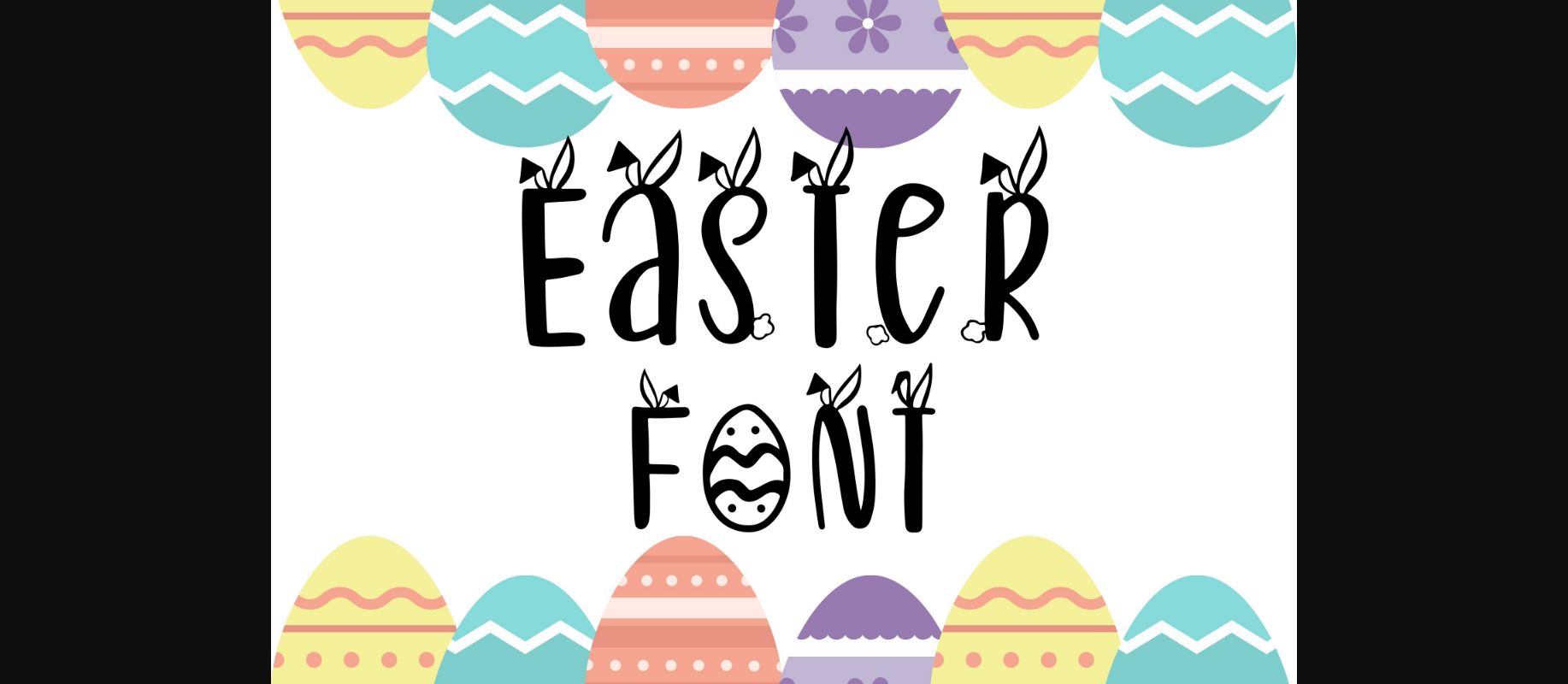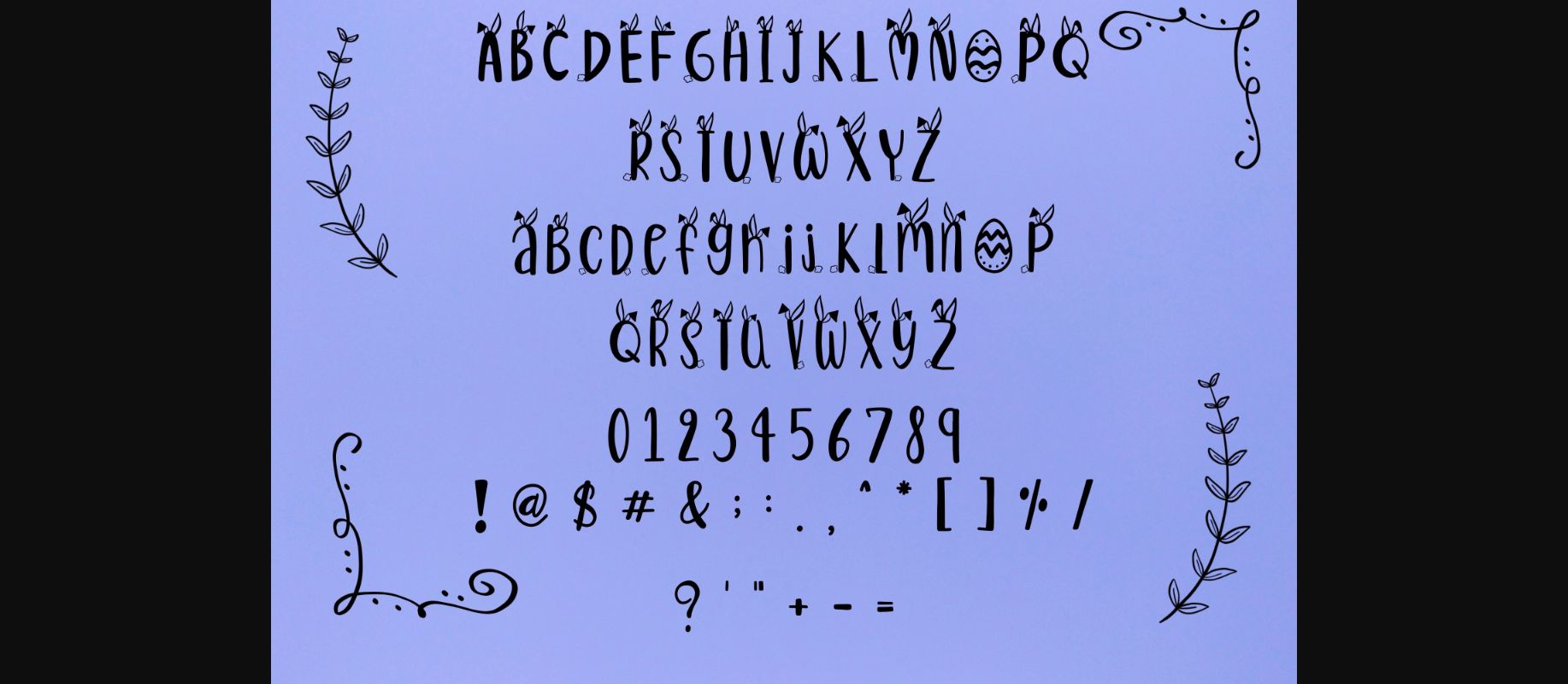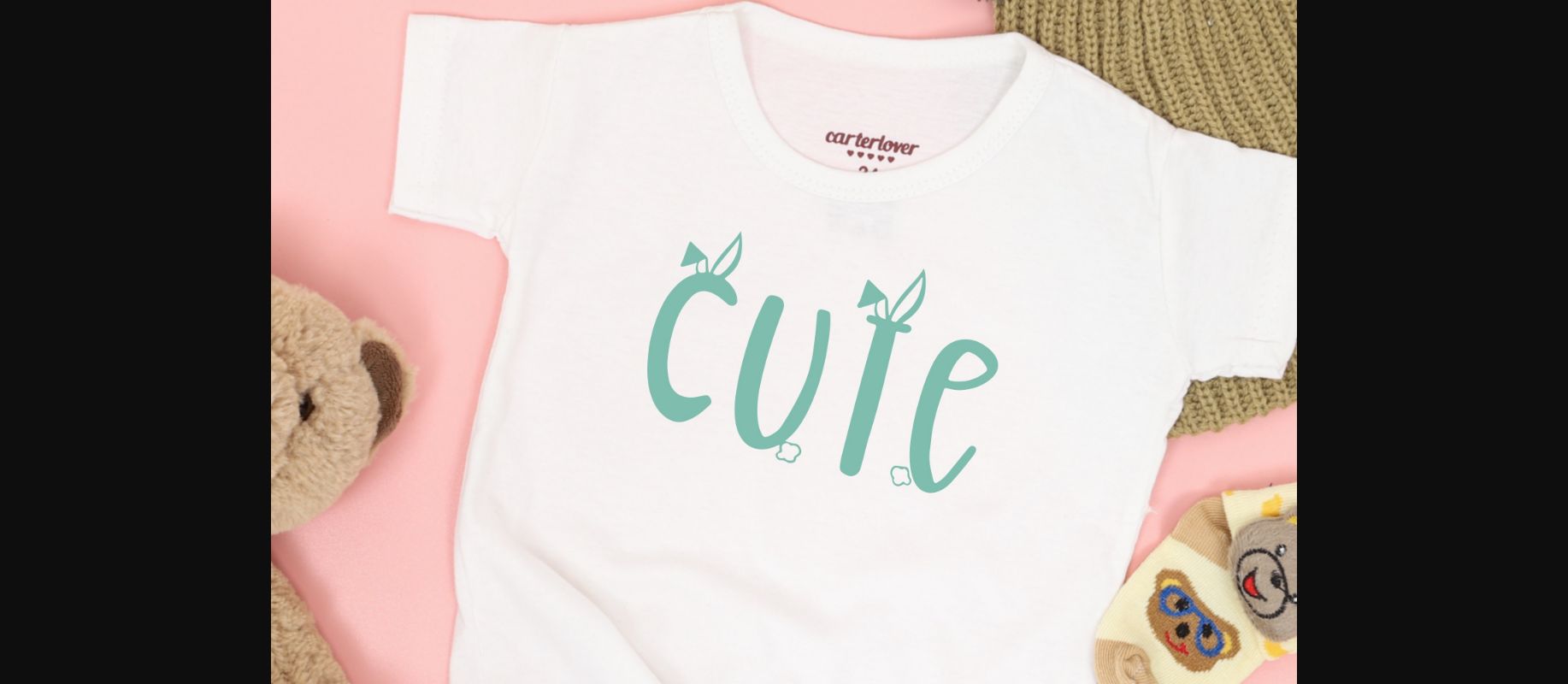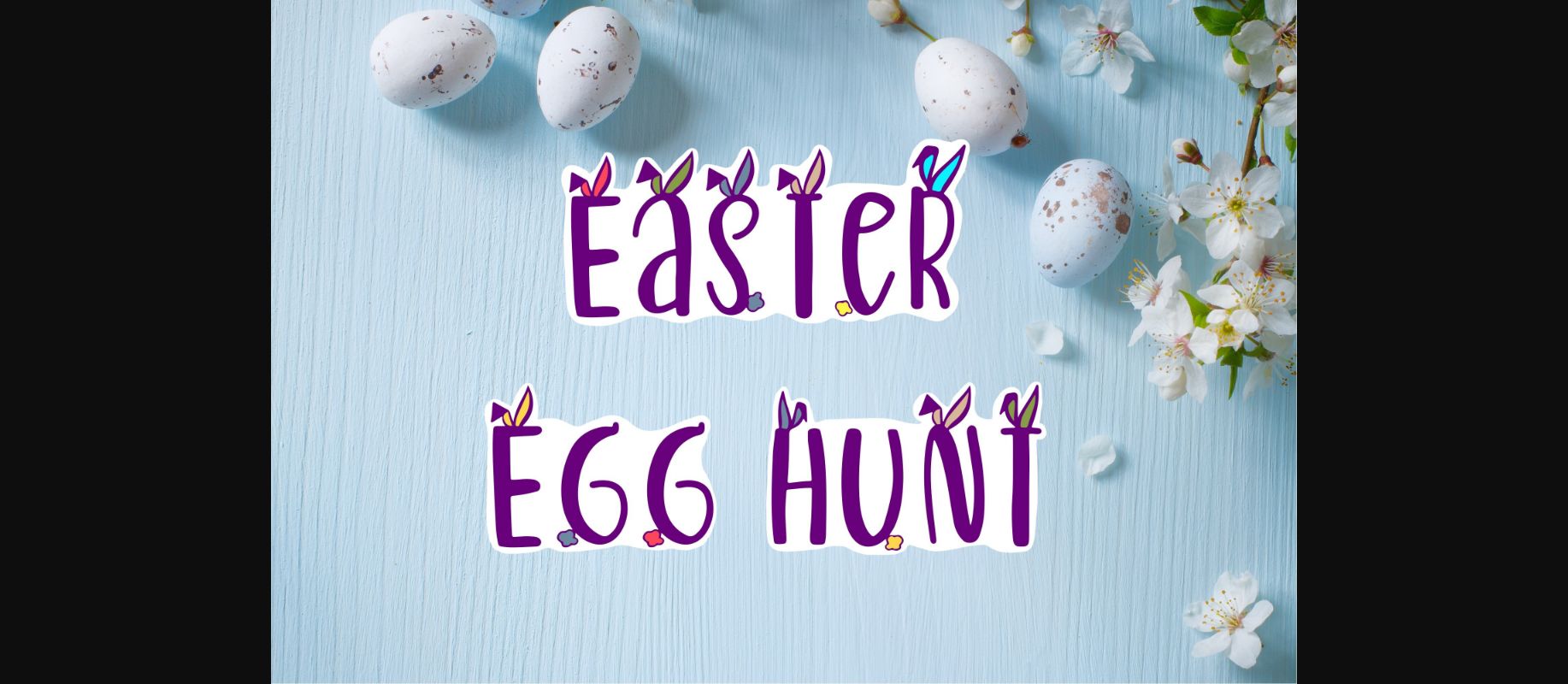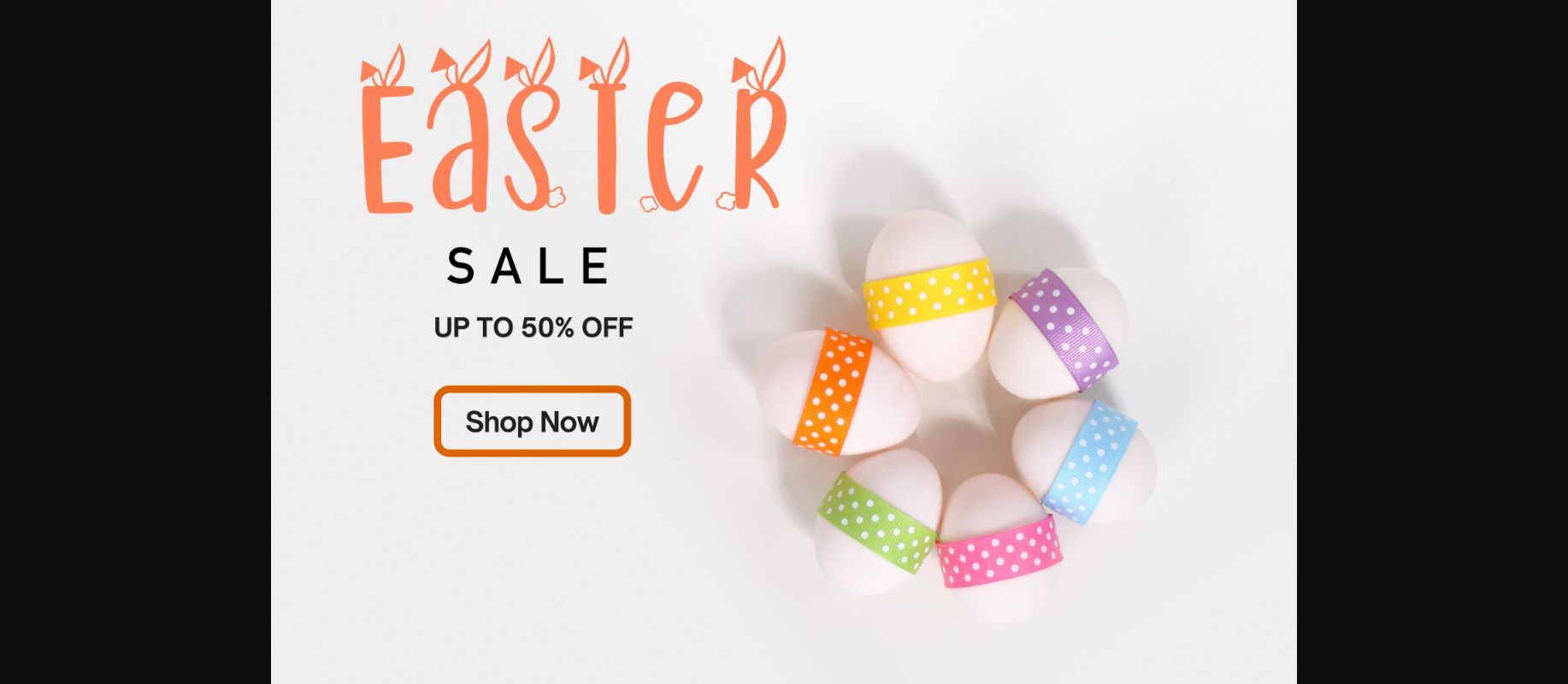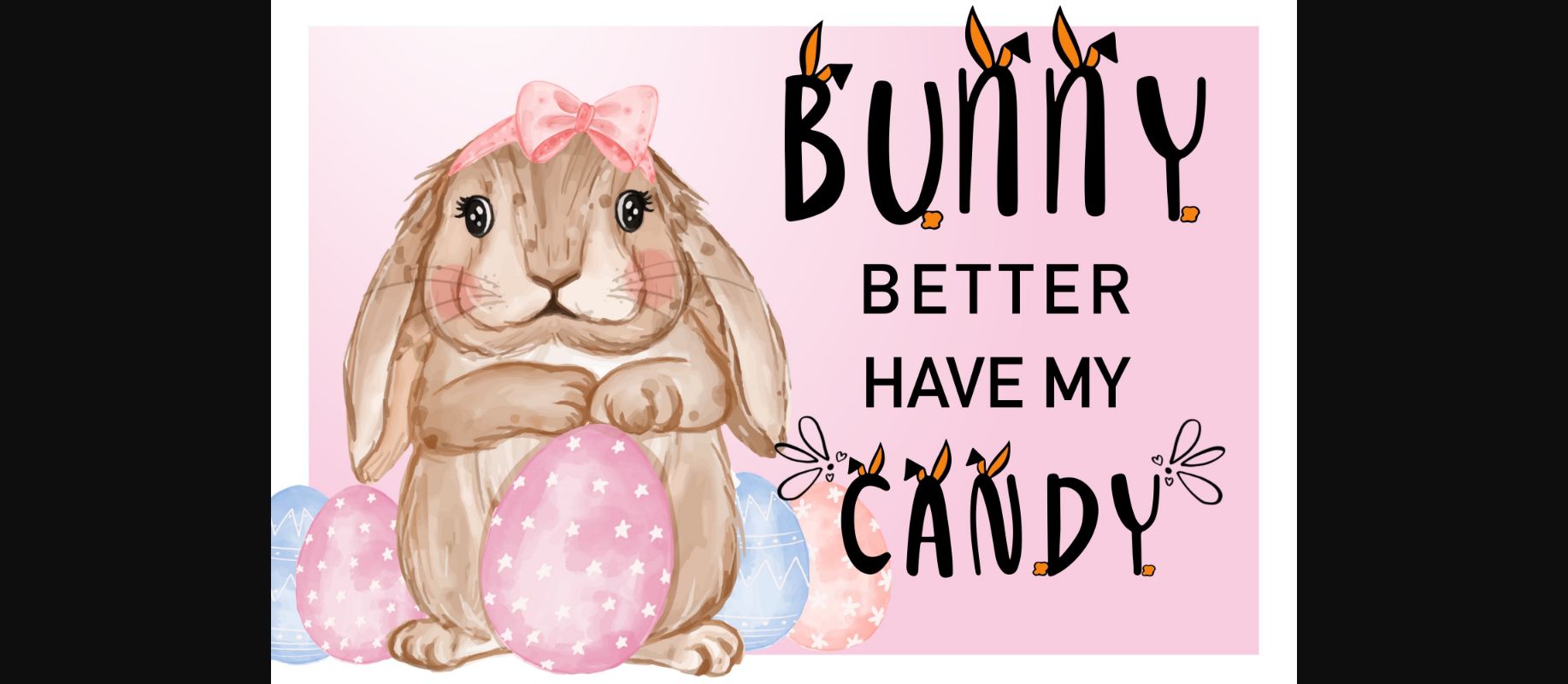
Easter Font
About Easter Font
Easter is a cute and playful decorative font. It embodies joy and authenticity and is the perfect choice for any children’s activity or school project.